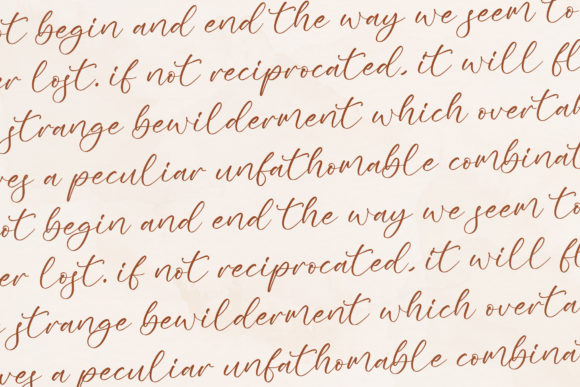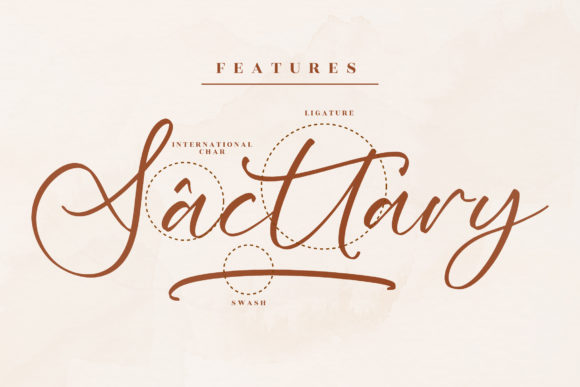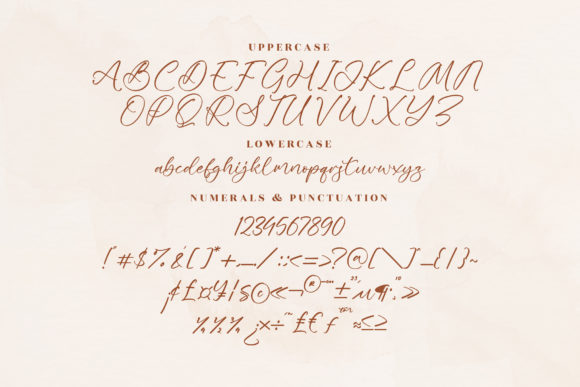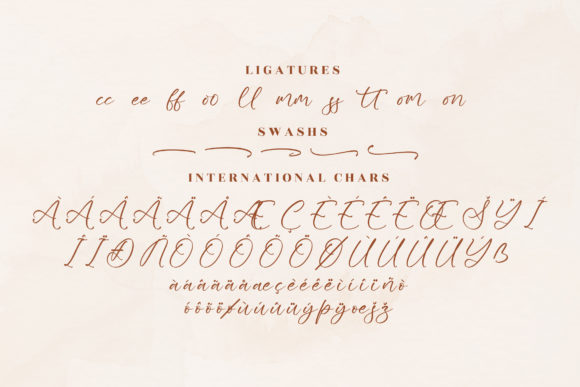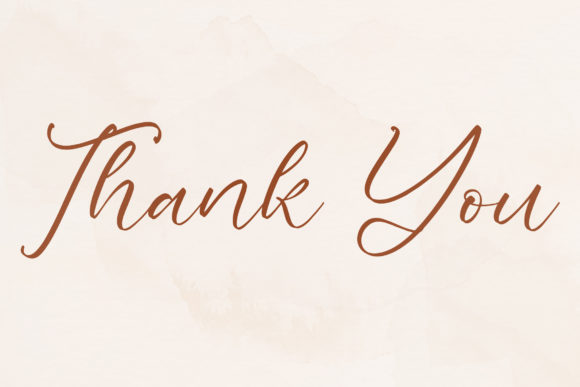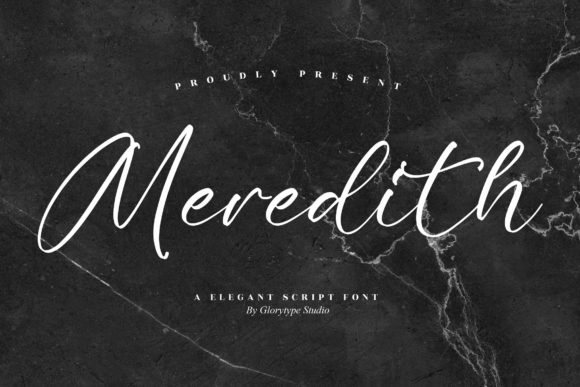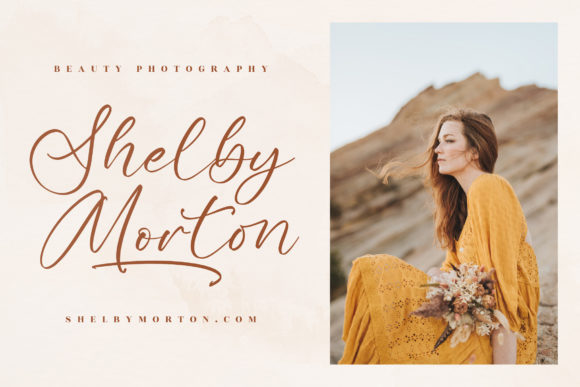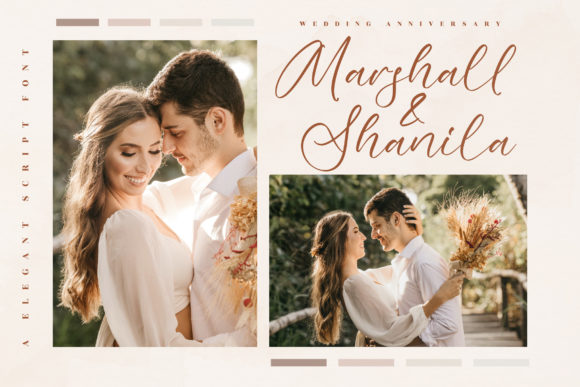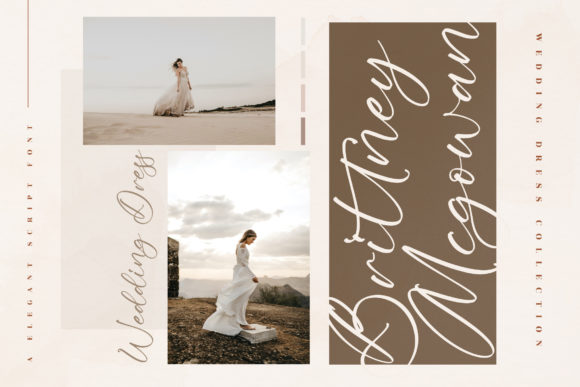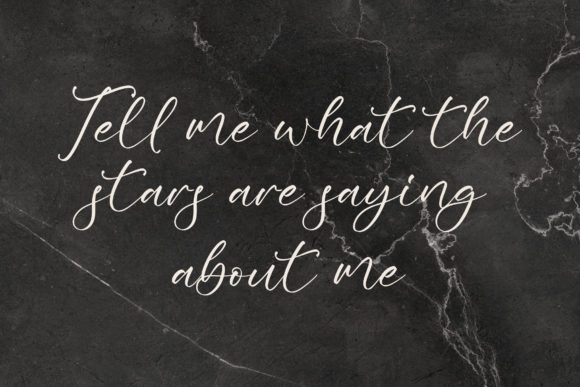
Meredith Font
About Meredith Font
Meredith, an exquisite script font, serves as a refined and versatile choice for an array of creative endeavors. Its elegant aesthetic makes it a perfect fit for a diverse range of projects, including logos, branding initiatives, homeware designs, product packaging, mugs, quotes, posters, shopping bags, t-shirts, book covers, name cards, invitation cards, greeting cards, labels, photography, watermarks, special events, and any other project in need of a tasteful script font.
For branding projects, Meredith’s graceful and flowing lines contribute to the creation of a distinctive and memorable brand identity. Logos designed with Meredith exude sophistication, capturing the essence of modern elegance and setting the tone for a refined visual presence.
In the realm of product design and packaging, Meredith elevates the overall aesthetic, adding a touch of luxury to various items. Whether it’s homeware designs or product packaging, the font’s elegant strokes enhance the visual appeal, making products stand out and leaving a lasting impression on consumers.
The script’s versatility extends to various print and digital media applications. Meredith lends itself beautifully to quotes, posters, and book covers, where its timeless elegance enhances the impact of textual content. T-shirts and shopping bags adorned with Meredith’s distinctive script make a bold fashion statement, adding a touch of sophistication to wearable and carryable items.
Meredith’s charm and grace also shine through in smaller-scale applications like name cards, invitation cards, greeting cards, and labels. These personal and professional touches benefit from the font’s ability to convey a sense of beauty and refinement, making each piece unique and memorable.
In the realm of photography, Meredith serves as an elegant watermark, subtly branding images with a touch of sophistication. Its seamless integration into special events materials, such as invitations and place cards, ensures a cohesive and polished look for weddings, corporate gatherings, or other significant occasions.
Overall, Meredith stands out as an elegant script font that effortlessly brings a beautiful and refined taste to a wide spectrum of creative projects. Its versatility, combined with its timeless aesthetic, makes it a valuable tool for designers seeking to impart a sense of sophistication to their work across diverse design contexts.